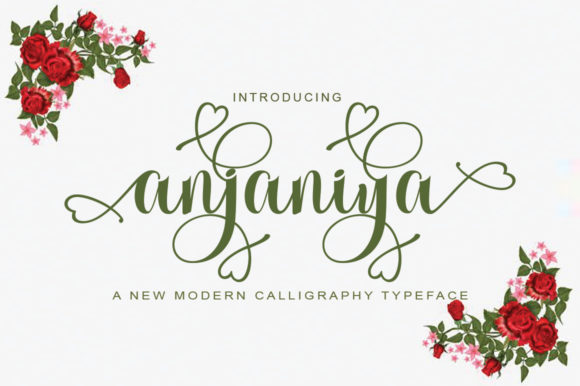
The Perfect Font for Your Next Design Project: Anjania
I’ll never forget the time I was working on a wedding invitation project, and my client asked for a font that was both elegant and playful. I spent hours scouring the internet for the perfect match, but nothing seemed quite right. That was until I stumbled upon Anjania, a beautiful modern handwritten font that exceeded my client’s expectations and mine!
Anjania is a versatile font that’s ready to be used in your next design project, whether it’s a logo, wedding invitation, book cover, or anything in between. The only limit is your imagination! In this article, I’ll share my experience with Anjania, including what I love about it, some minor quirks, and practical tips on how to use it on various platforms.
An Honest Review of Anjania
What I Love About Anjania ✨
- 💕 Elegant and Playful: Anjania strikes the perfect balance between elegance and playfulness, making it suitable for a wide range of design projects.
- ✅ Highly Versatile: This font can be used for logos, headings, body text, and more, giving you endless creative possibilities.
- 🌈 Beautiful Ligatures: Anjania features stunning ligatures that add a touch of sophistication to your designs.
- 📝 Easy to Read: Despite its elegant appearance, Anjania remains highly legible, even at smaller font sizes.
Some Minor Quirks 🤔
- ⚠️ Limited Cyrillic Support: Anjania’s Cyrillic character set is limited, which might be a concern if you need to support languages that use this script.
- 😐 No Condensed or Extended Styles: Anjania is only available in a single style, which might limit its use in certain design situations.
The Story Behind Anjania
Anjania was designed by a talented typographer who’s passionate about creating beautiful, functional fonts. Inspired by the elegance of handwritten scripts and the playfulness of modern typography, Anjania was crafted to be a versatile font that can be used in a wide range of design projects.
Anjania is a modern handwritten font designed for creative projects, branding, and more.
While Anjania is elegant and highly legible, it’s recommended for headings and titles. For body text, consider using a more traditional font.